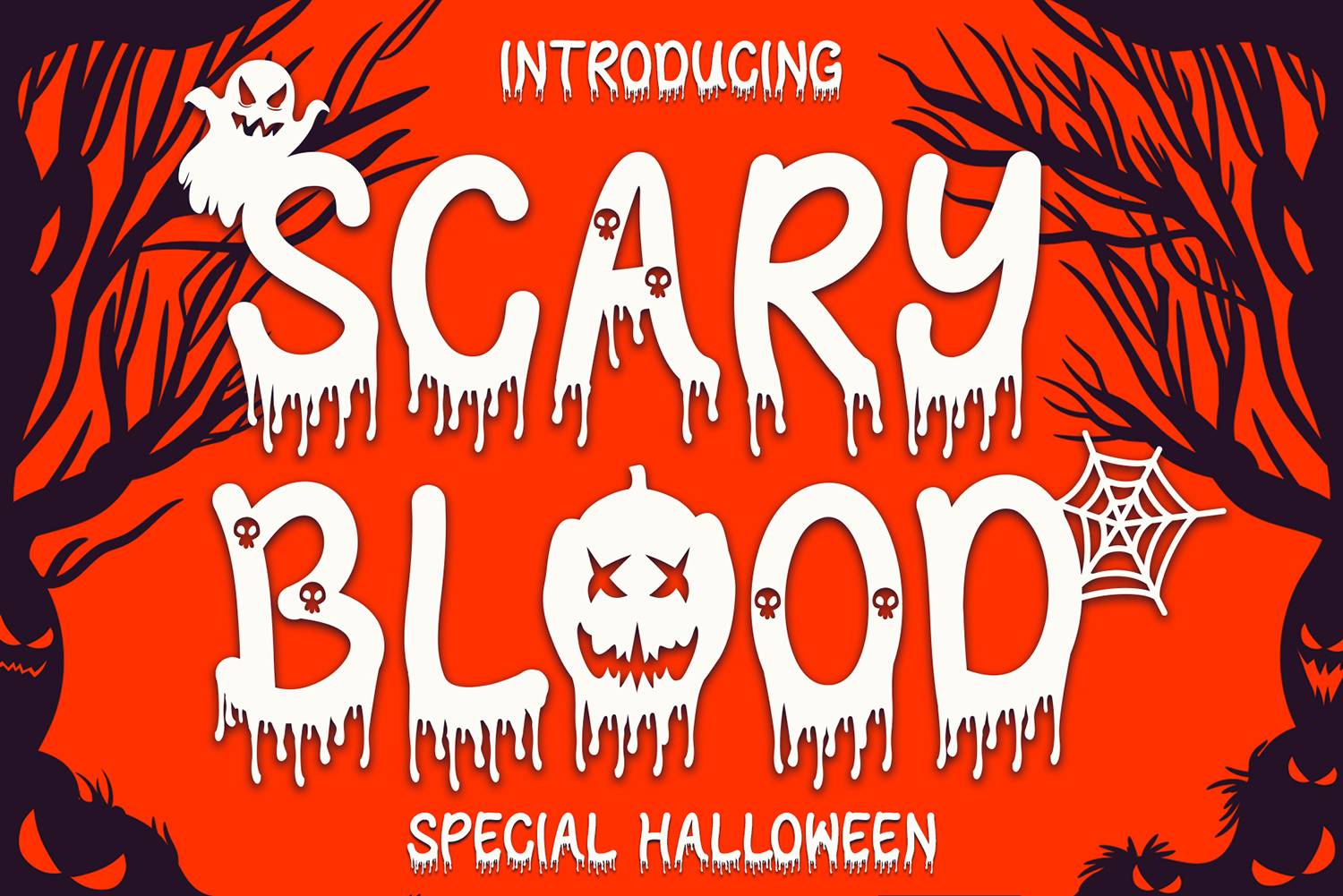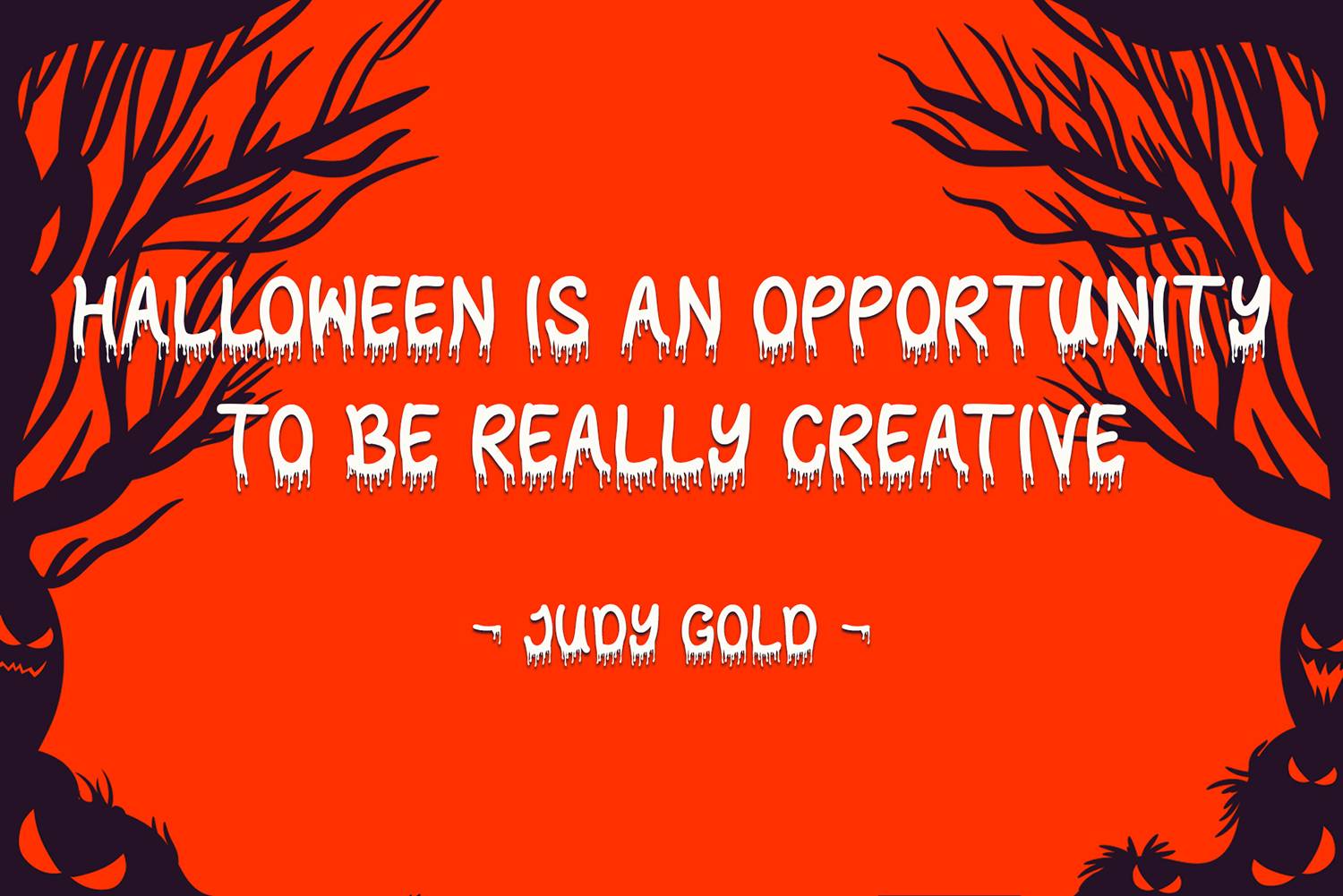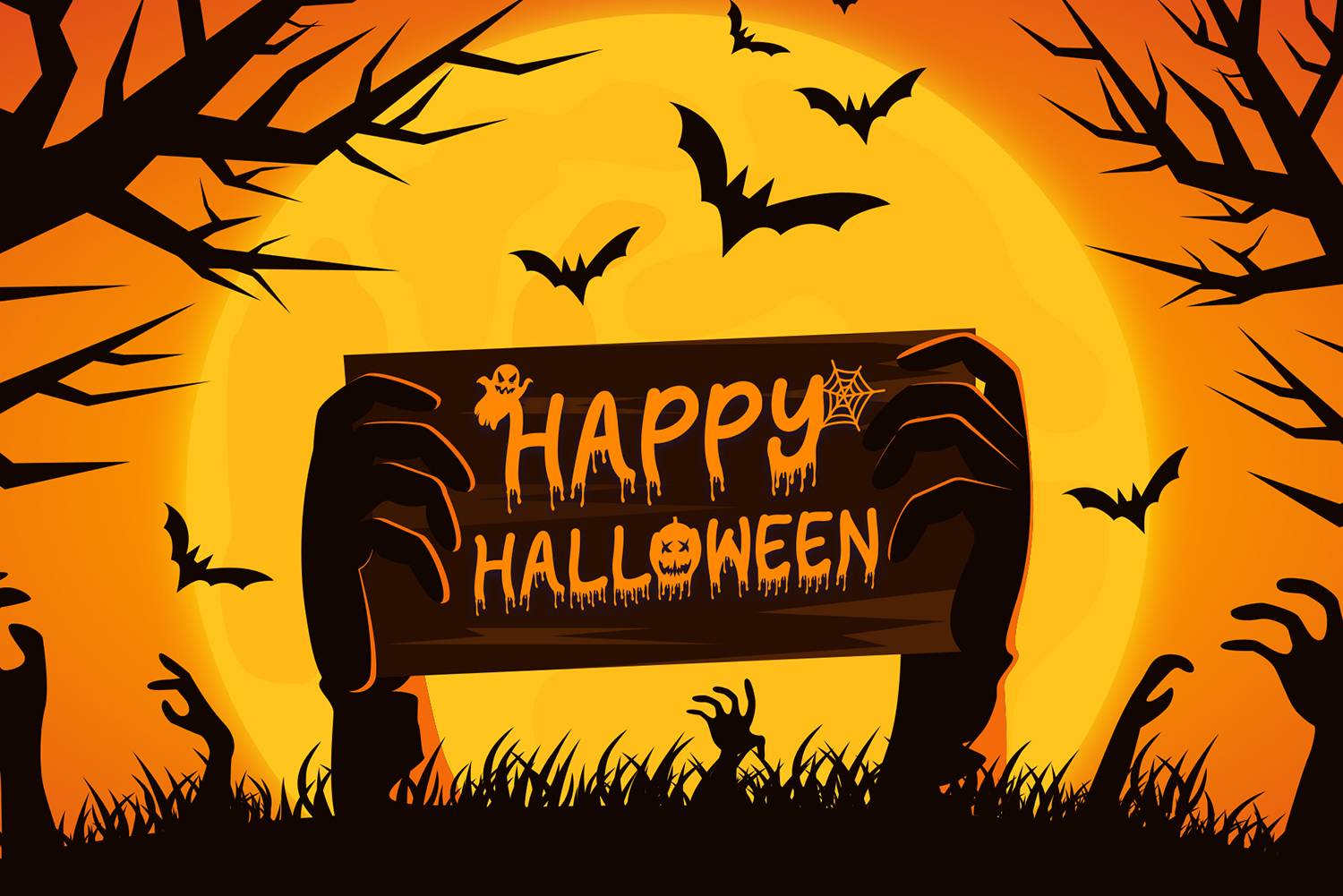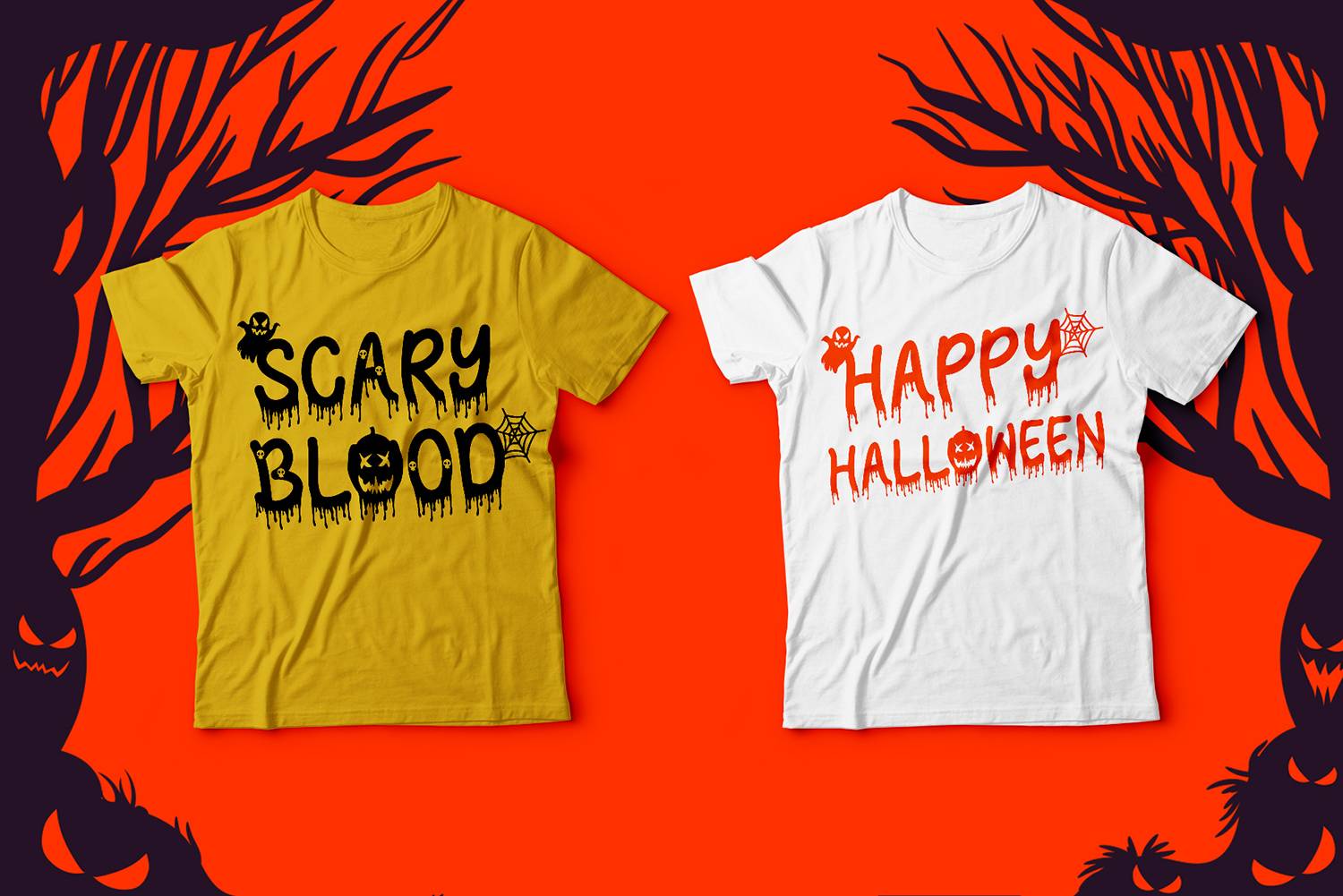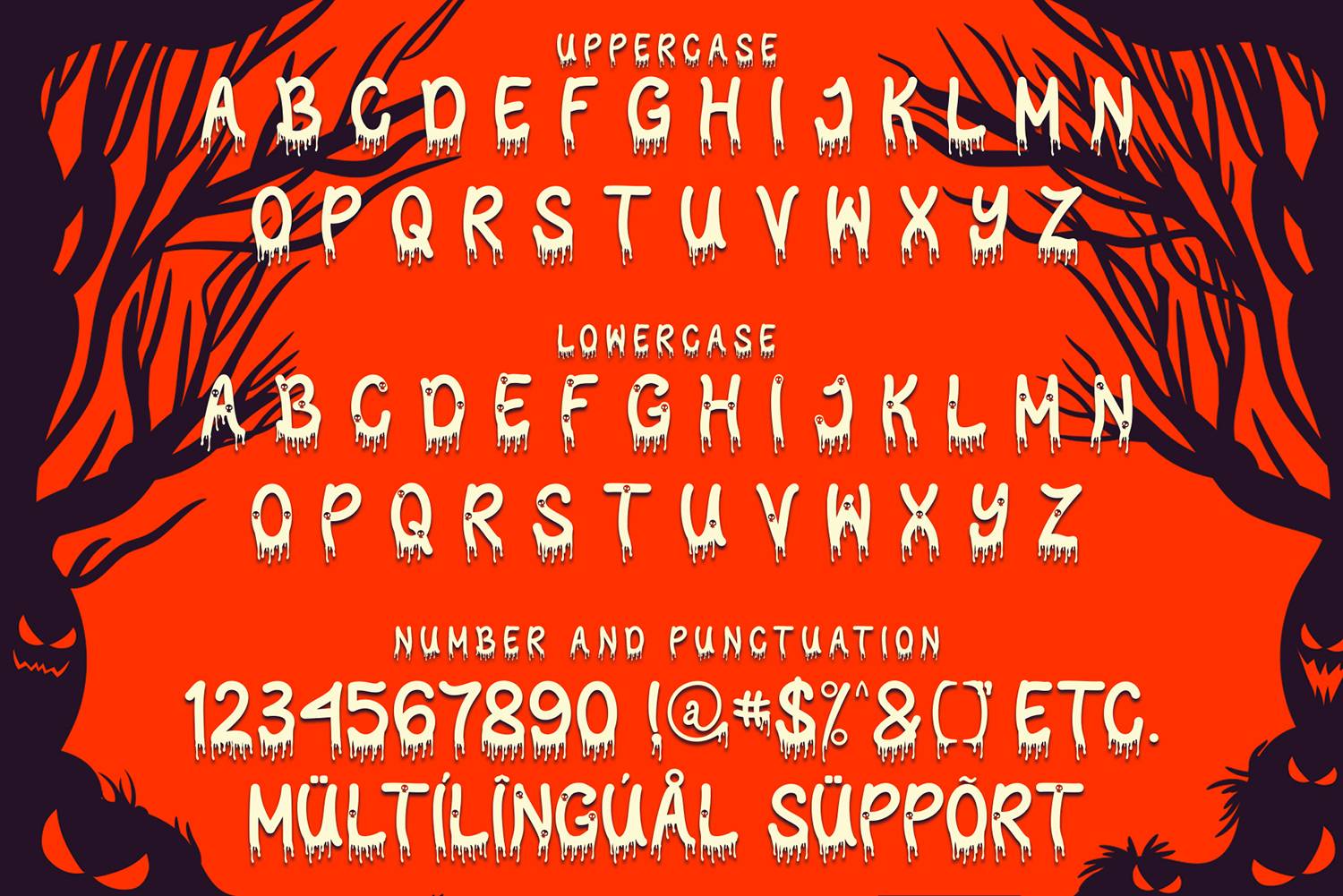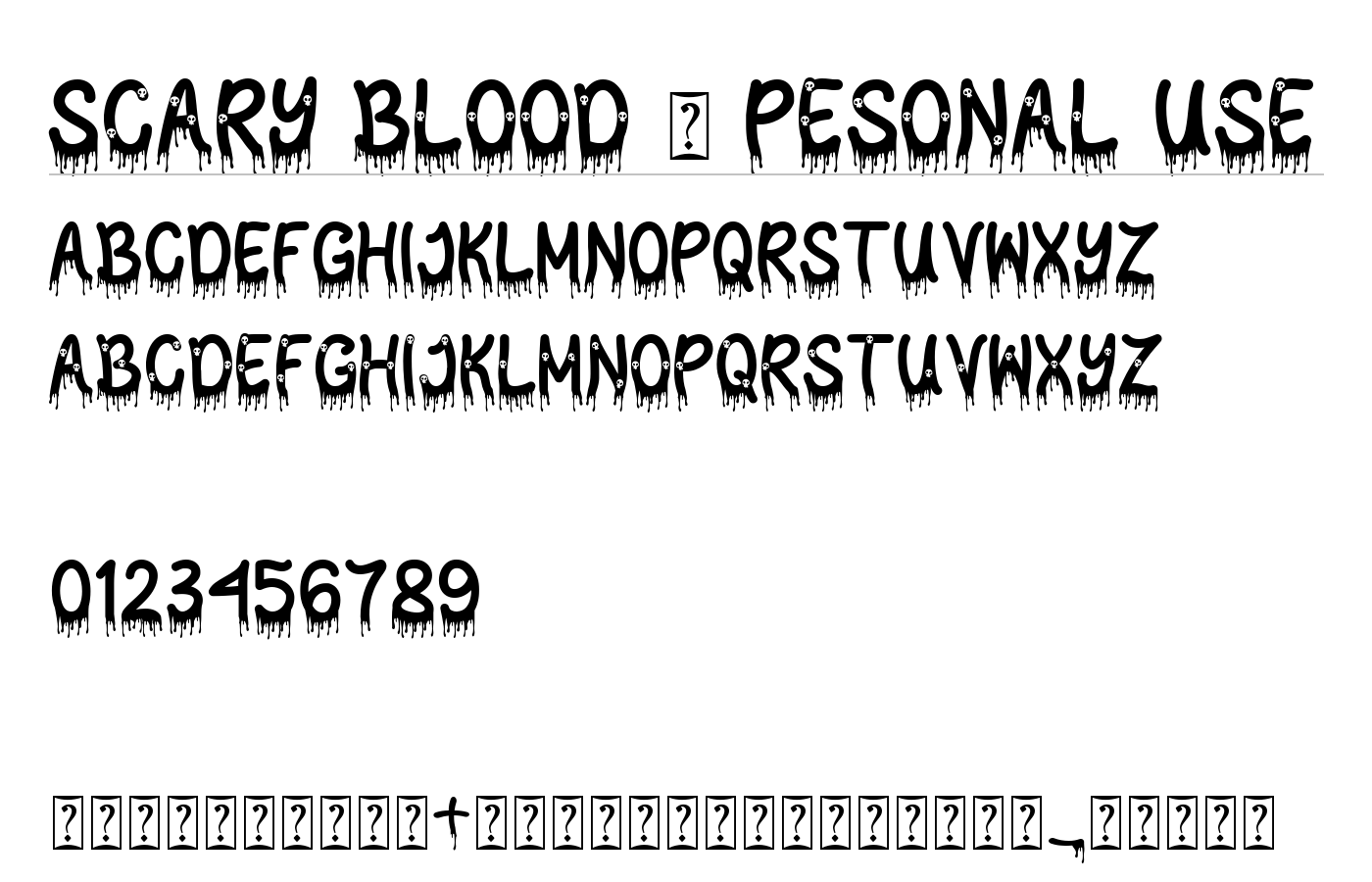
Scary Blood is a playful and spooky display font featuring uppercase and lowercase letters, numbers, and symbols with a dripping effect that mimics oozing blood. Its irregular, rounded letterforms combined with tiny skull accents create a fun yet eerie vibe, perfect for Halloween or horror-themed designs. This font works best for attention-grabbing headlines, party invitations, posters, and any project needing a creepy, decorative touch.
Scary Blood Font
About Scary Blood Font